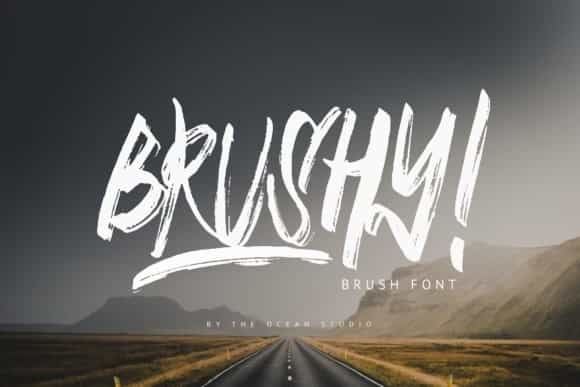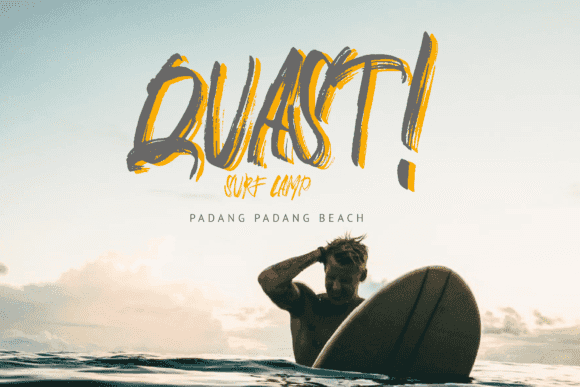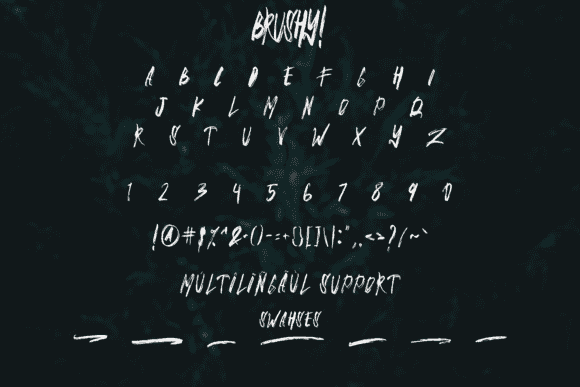
The Brushy is in fact just that – a harsh brush. Handwritten capitals from A to Z and 0 to 9 in three character sets, upper-, lowercase and the alternates set. In general, this font enables you to create a very special and manually made design.